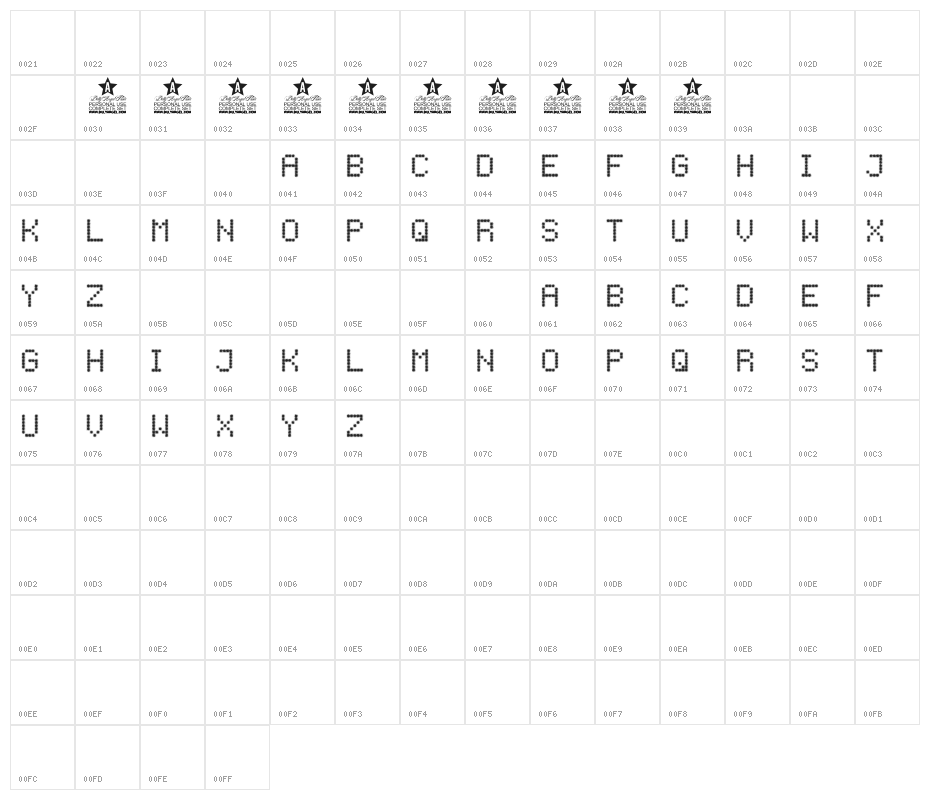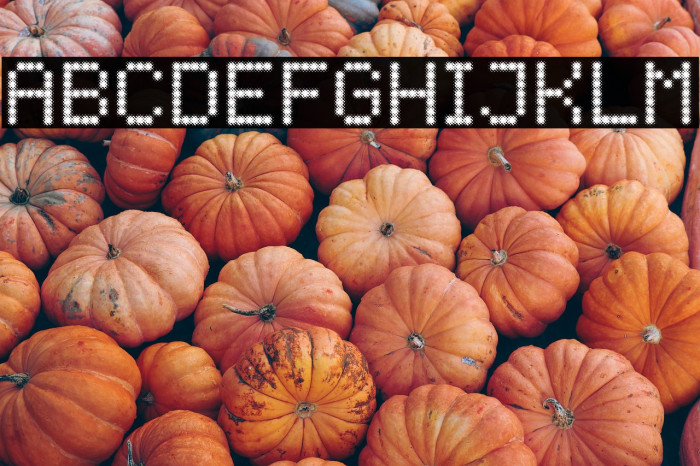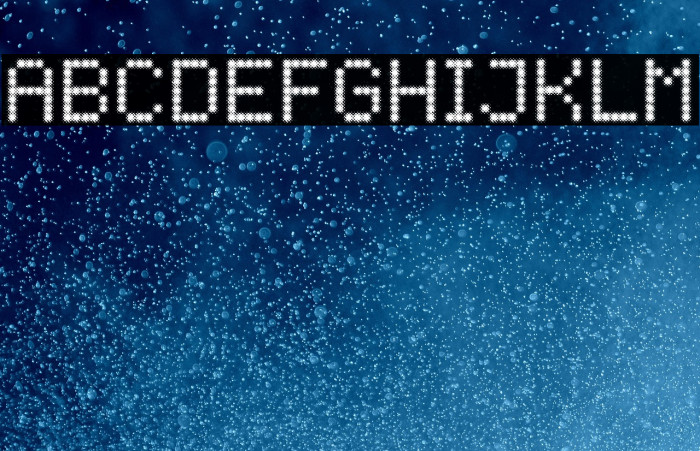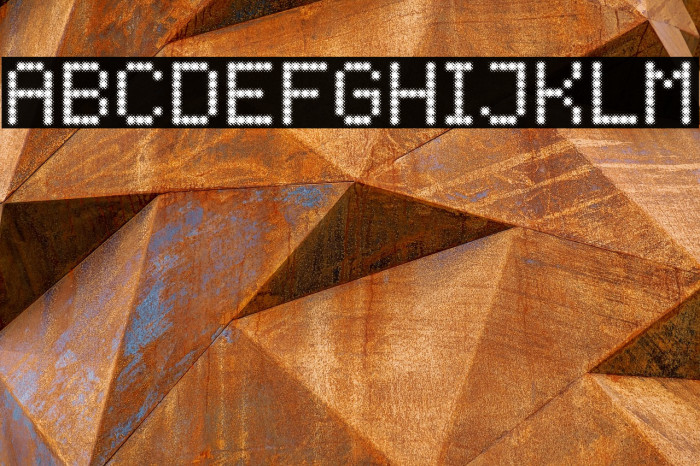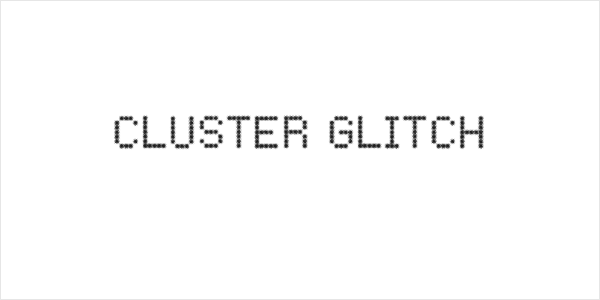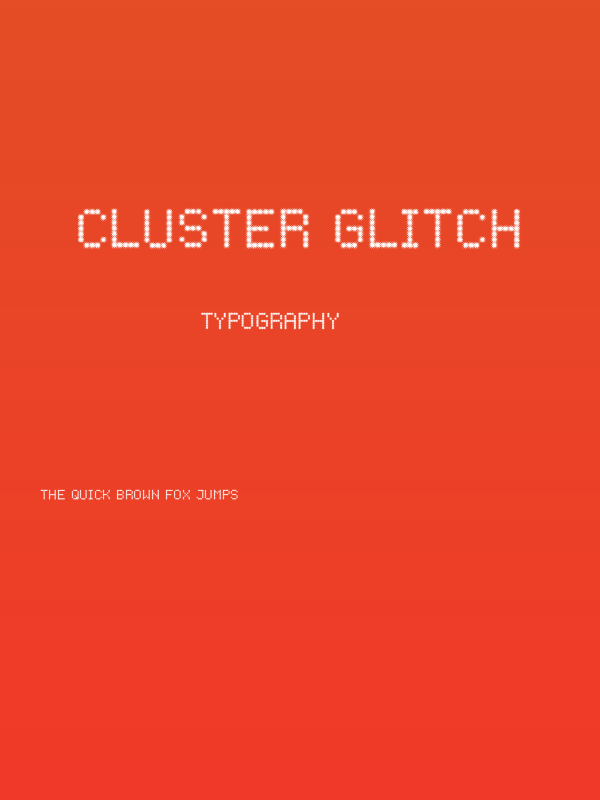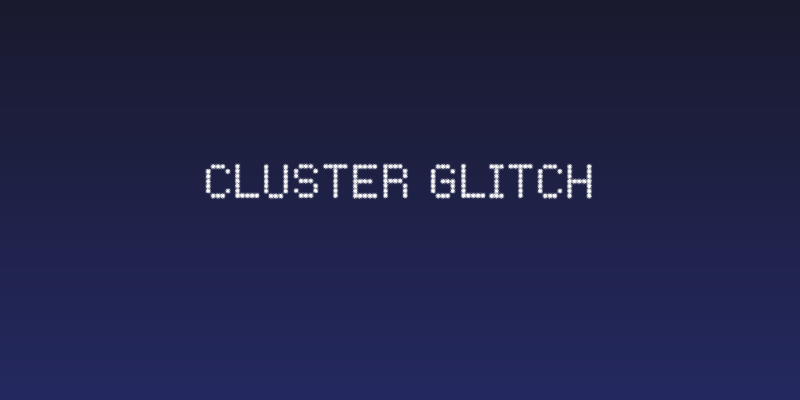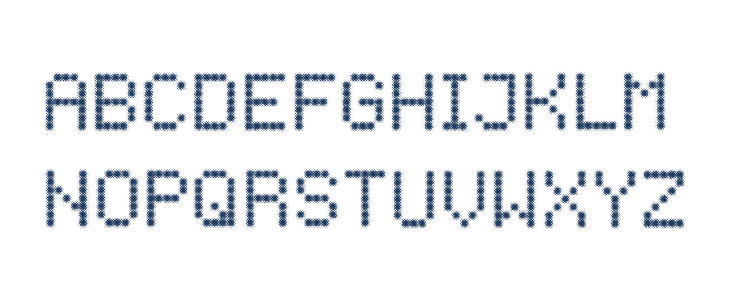
CLUSTER GLITCH Font
CLUSTER GLITCH Description
This font features a distinctive pixelated design, reminiscent of digital displays or retro video game graphics. Each character is composed of small square blocks, creating a grid-like appearance that is both modern and nostalgic. The uppercase letters are bold and uniform, with consistent spacing and alignment. The font's unique style makes it ideal for projects that require a digital or tech-inspired aesthetic. Its geometric structure ensures readability while maintaining a playful and creative edge. The font does not include lowercase letters or special characters, focusing solely on uppercase alphabetic characters.
| Use Case | Logos, Headlines, Digital Art |
| Proposed Projects | Ideal for digital art, retro-themed designs, video game graphics, and tech-related branding. |